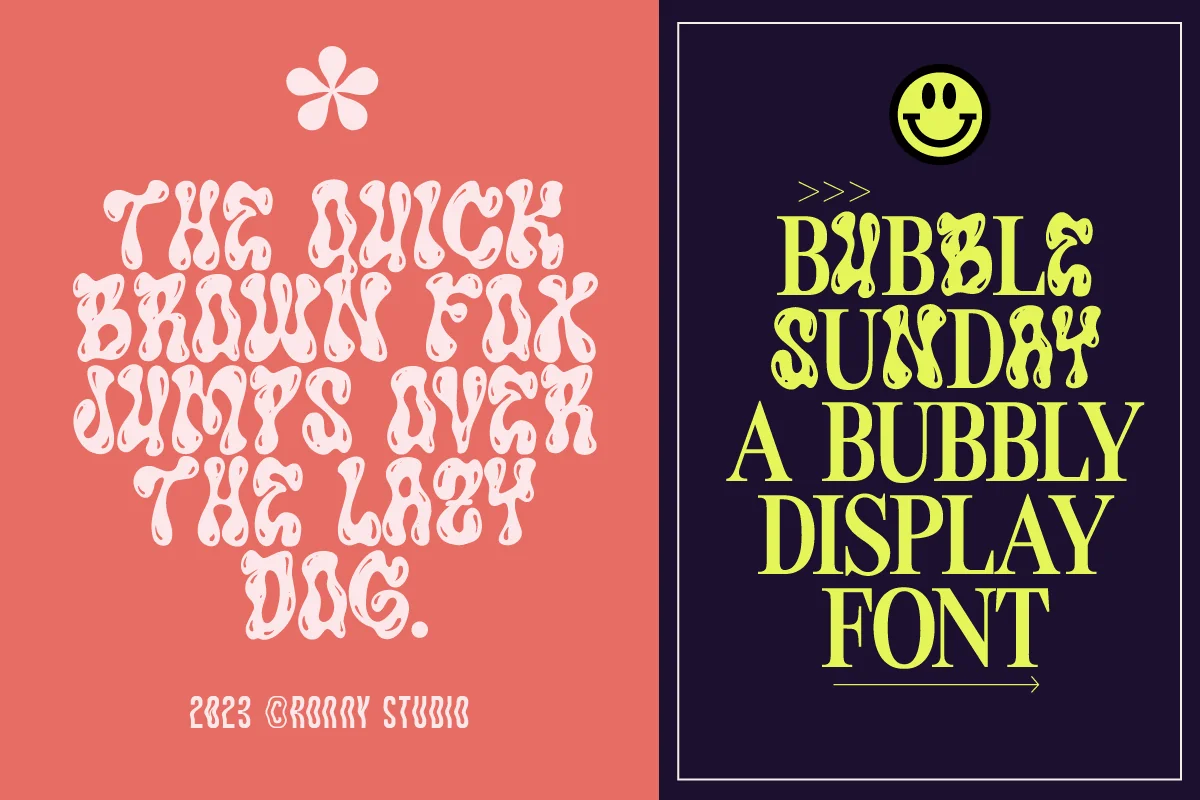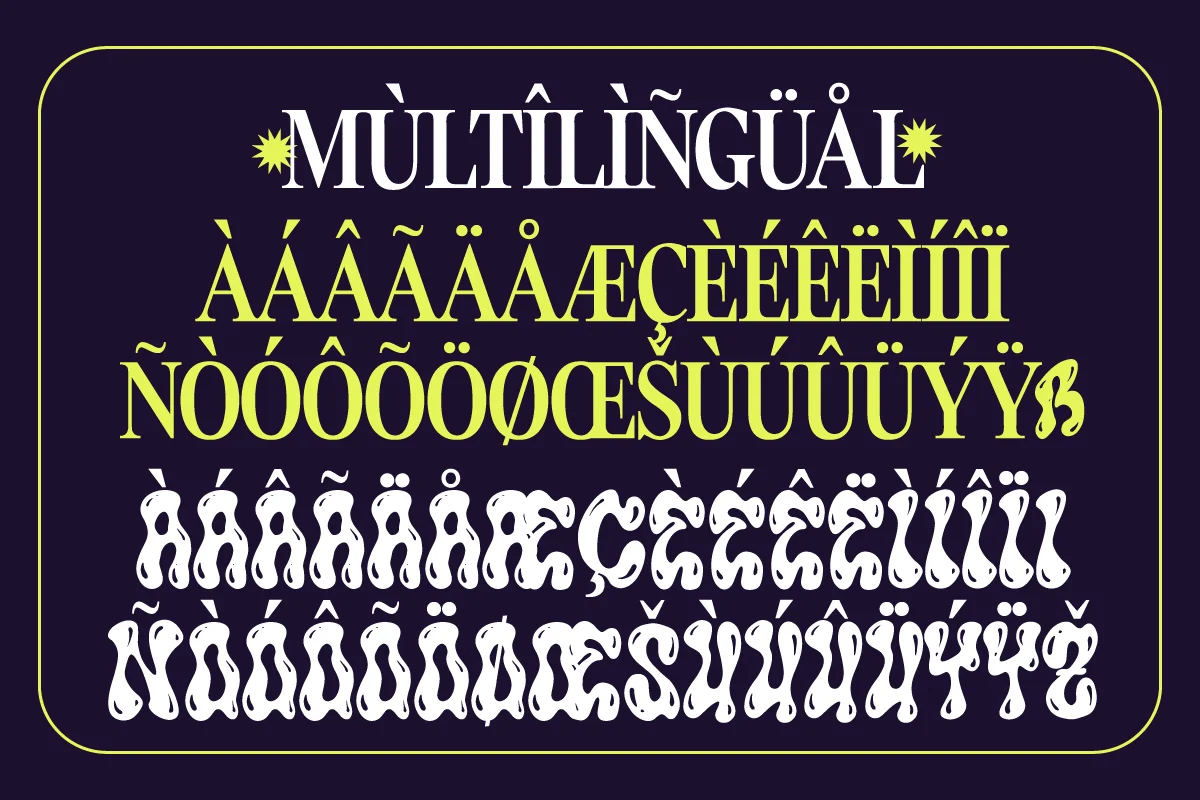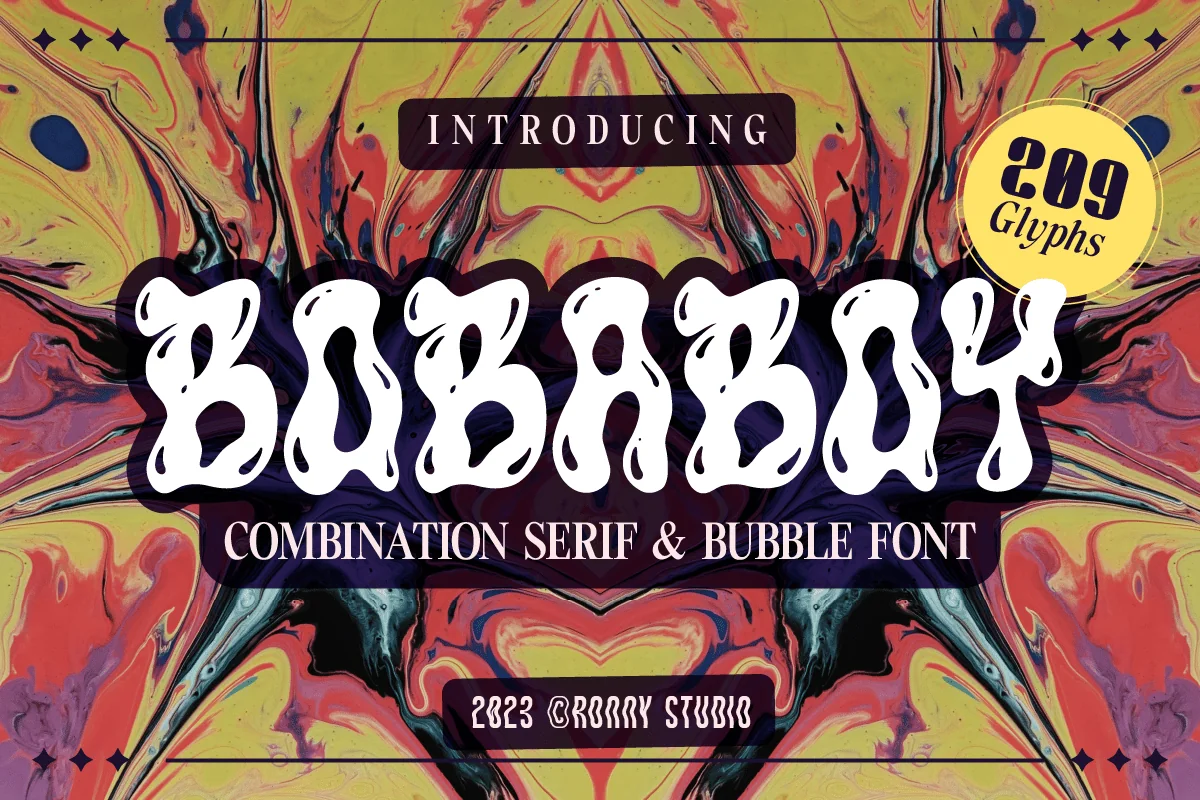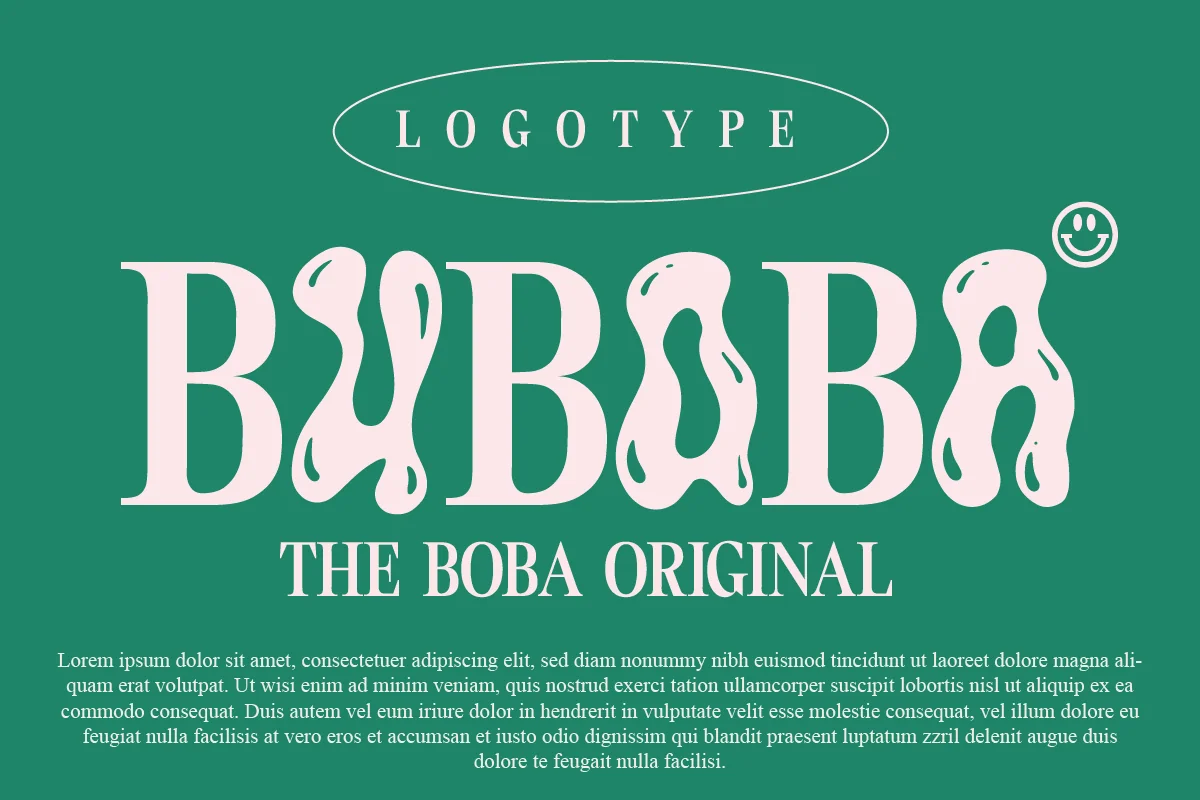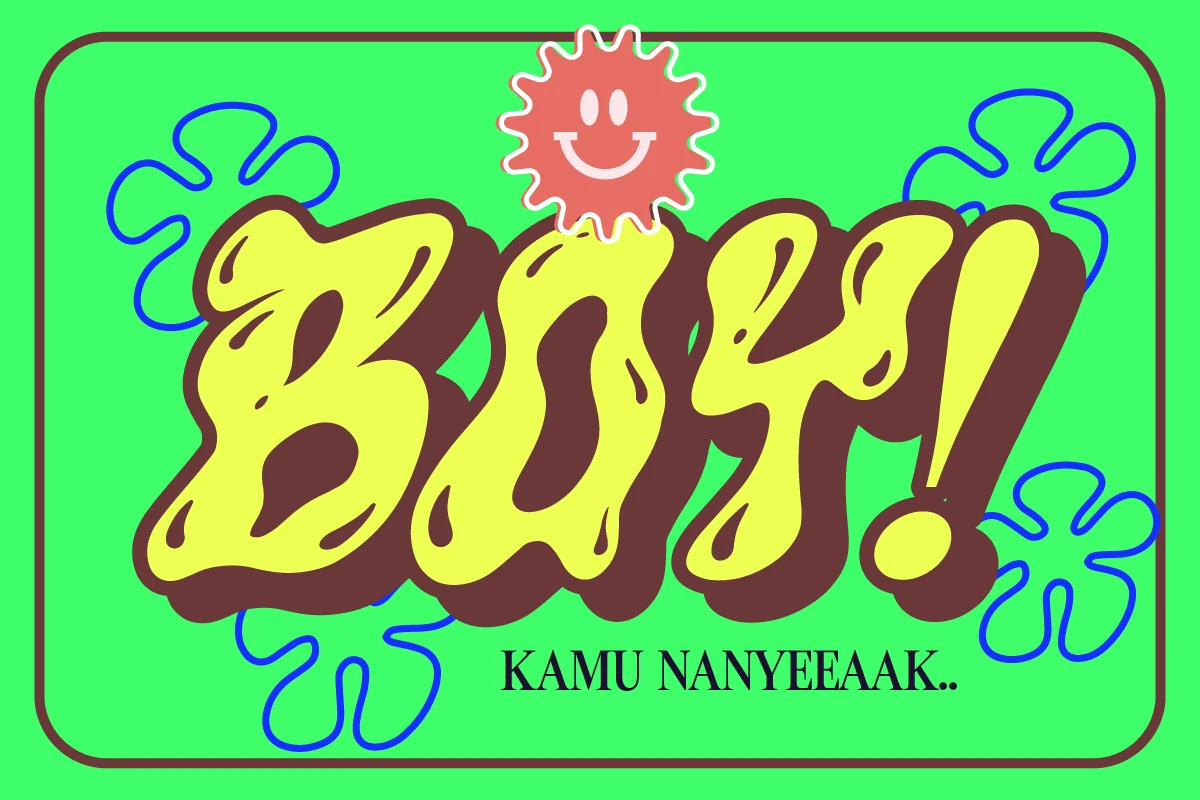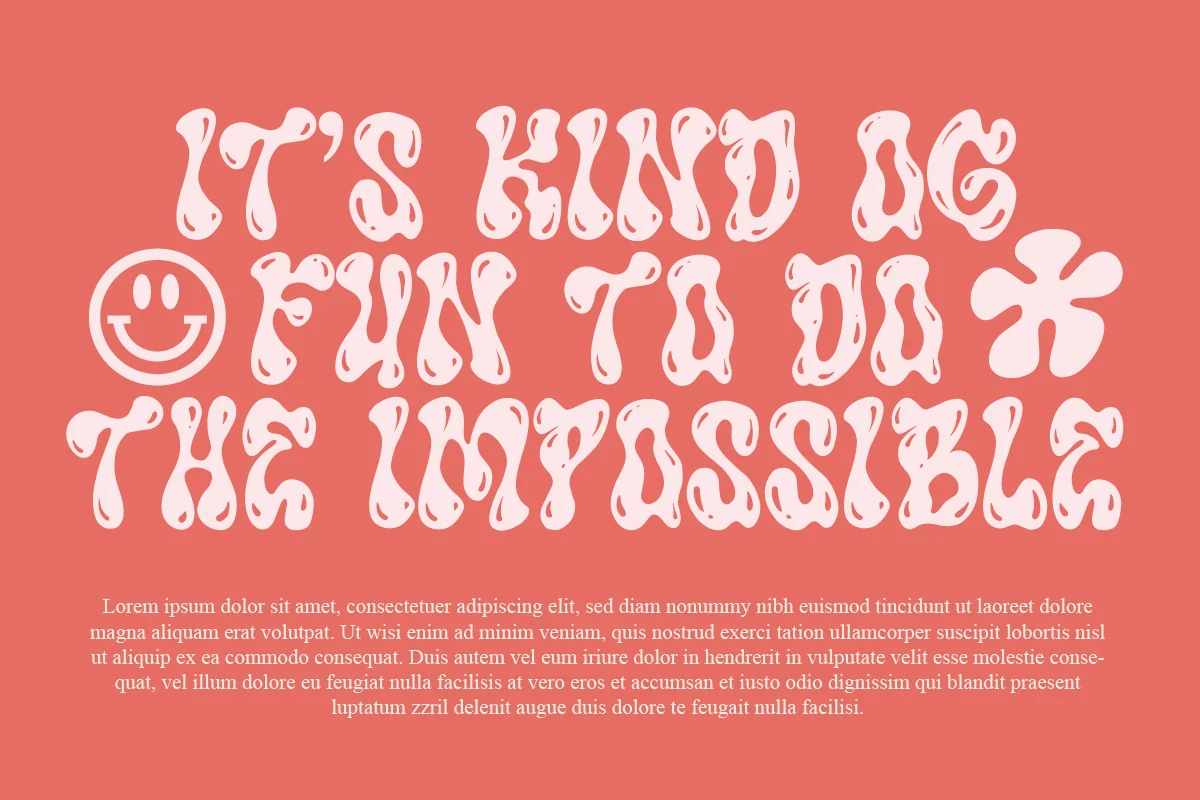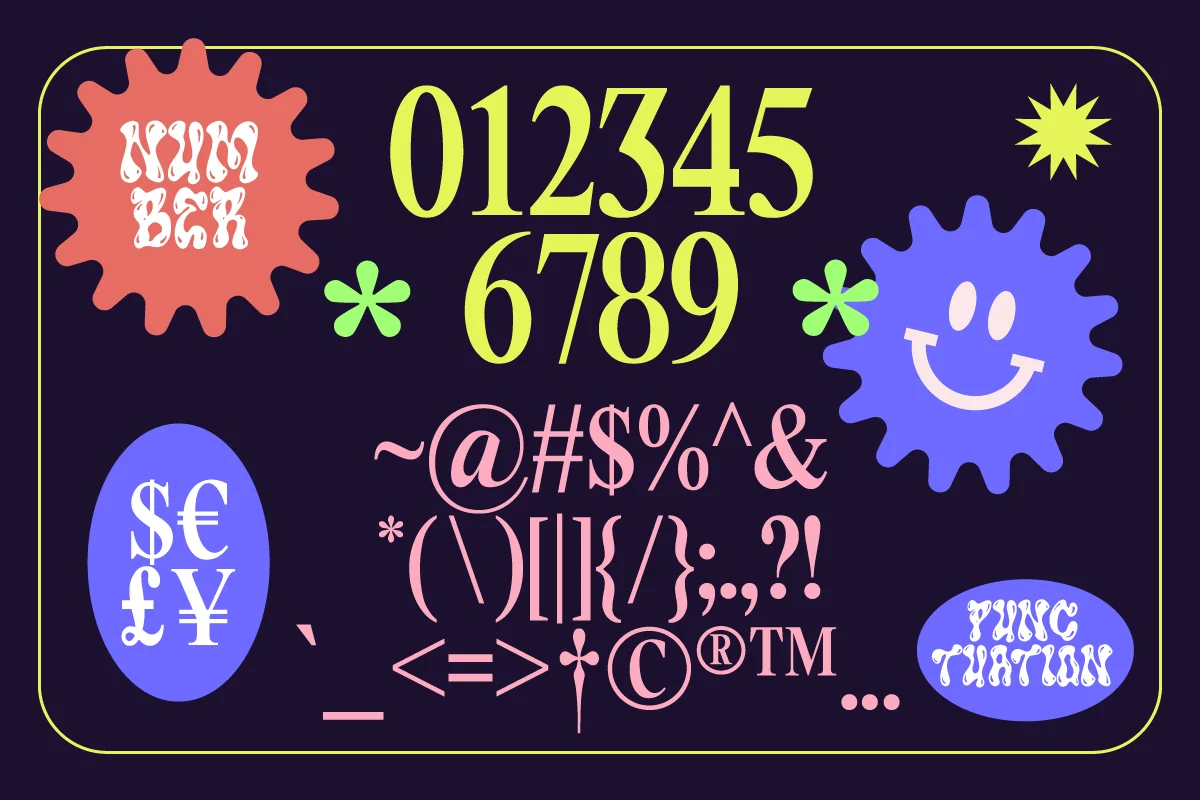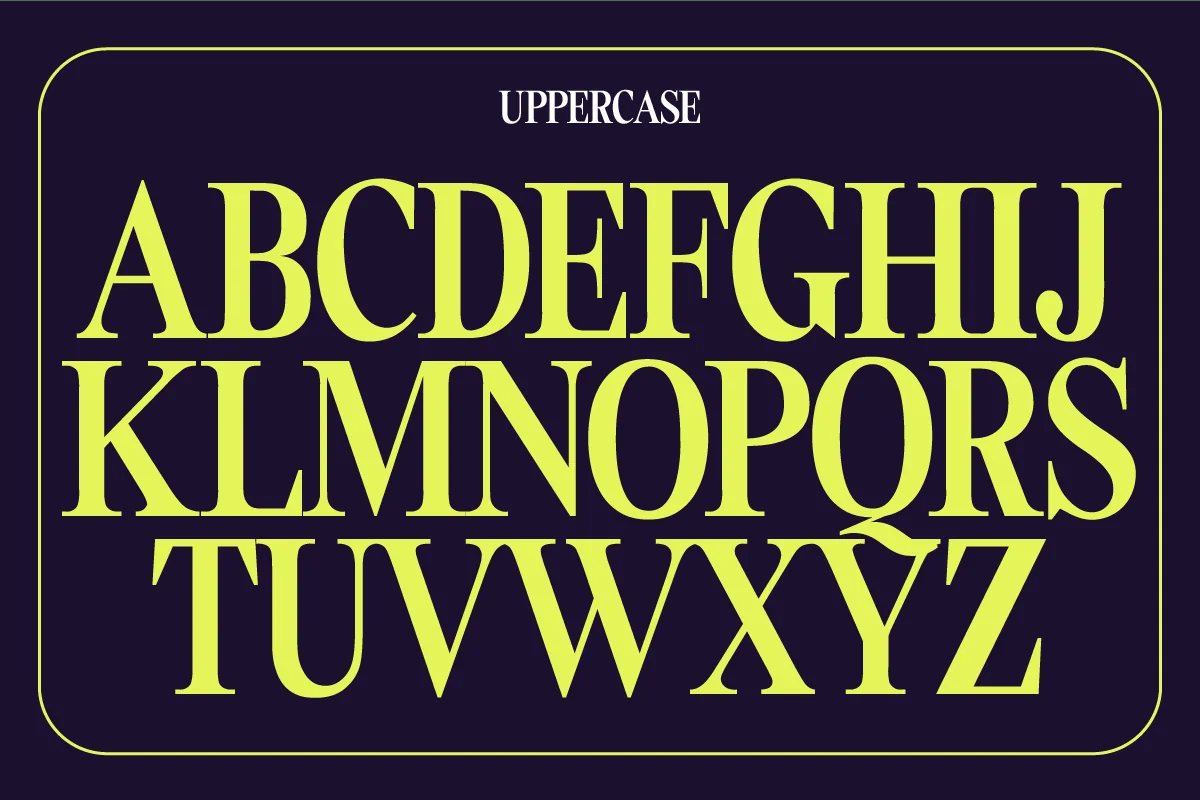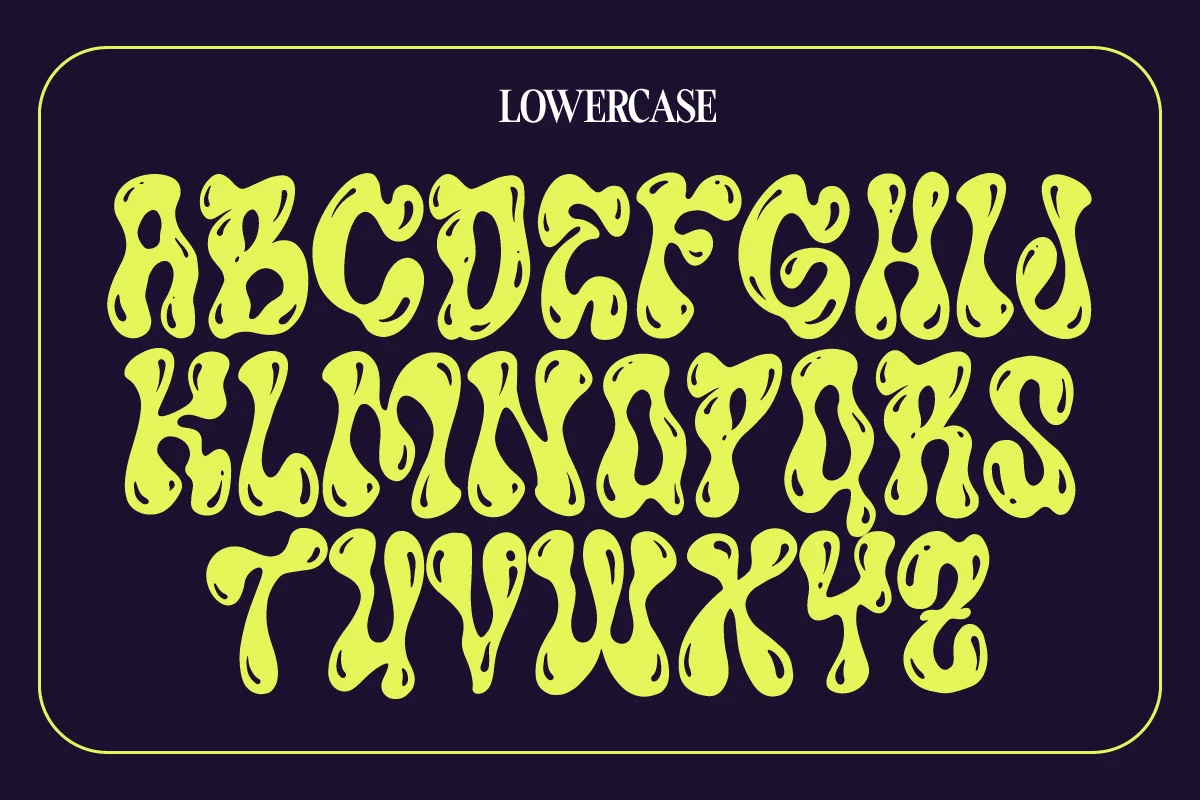
Bobaboy – Combination Serif & Bubble Font
Bobaboy is retro, bold and fun, really bringing your pieces together to give it a retro feel. This font is combined with a serif so it has the feel of a duo font. This is the perfect font for designers who want to add a contemporary hand touch of psychedelic acid graphics to their projects. be it posters, magazines, Instagram, logos, games or branding.
- Lowercase & Uppercase ( All Caps )
- numbers and punctuation
- Alternate & Ligature
- multilingual